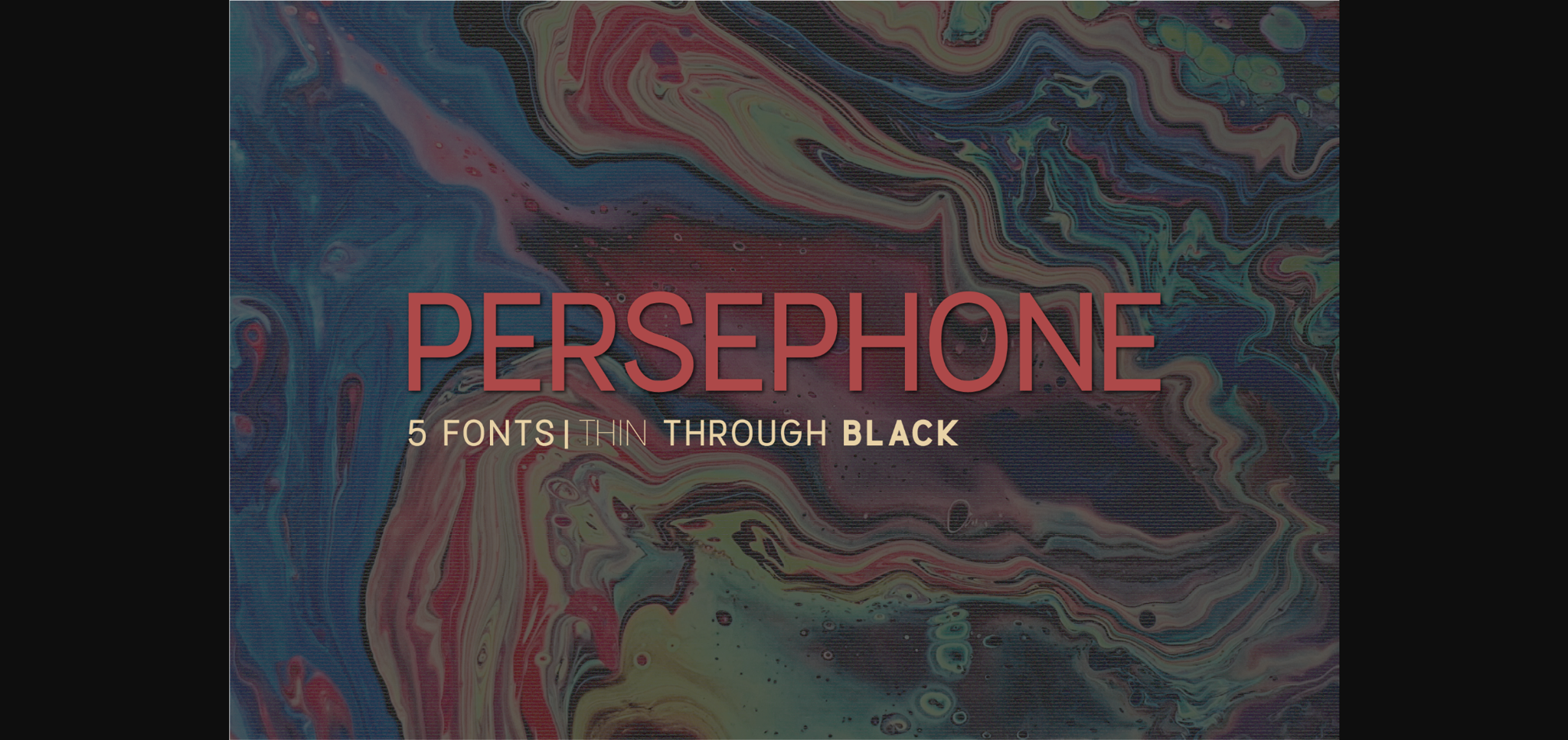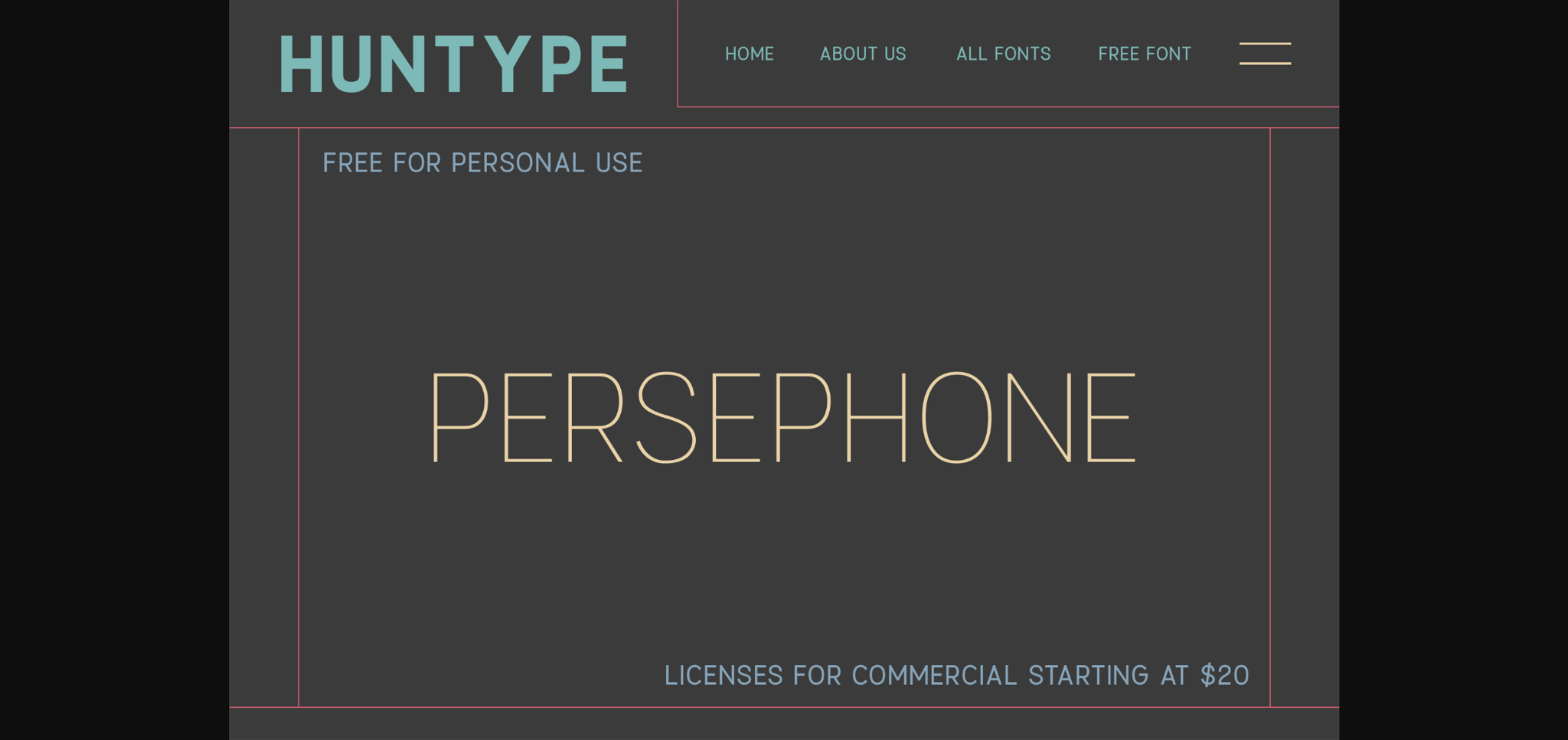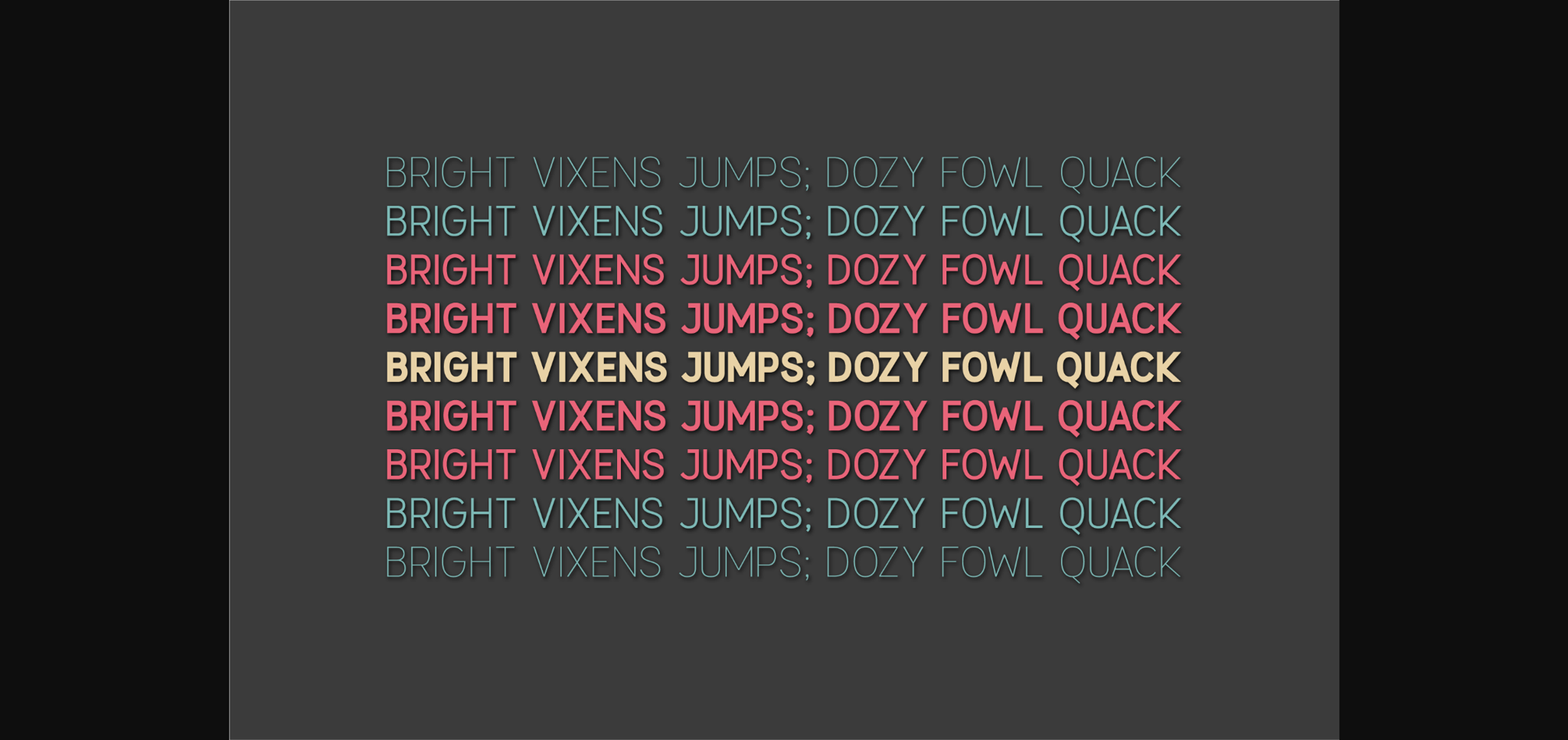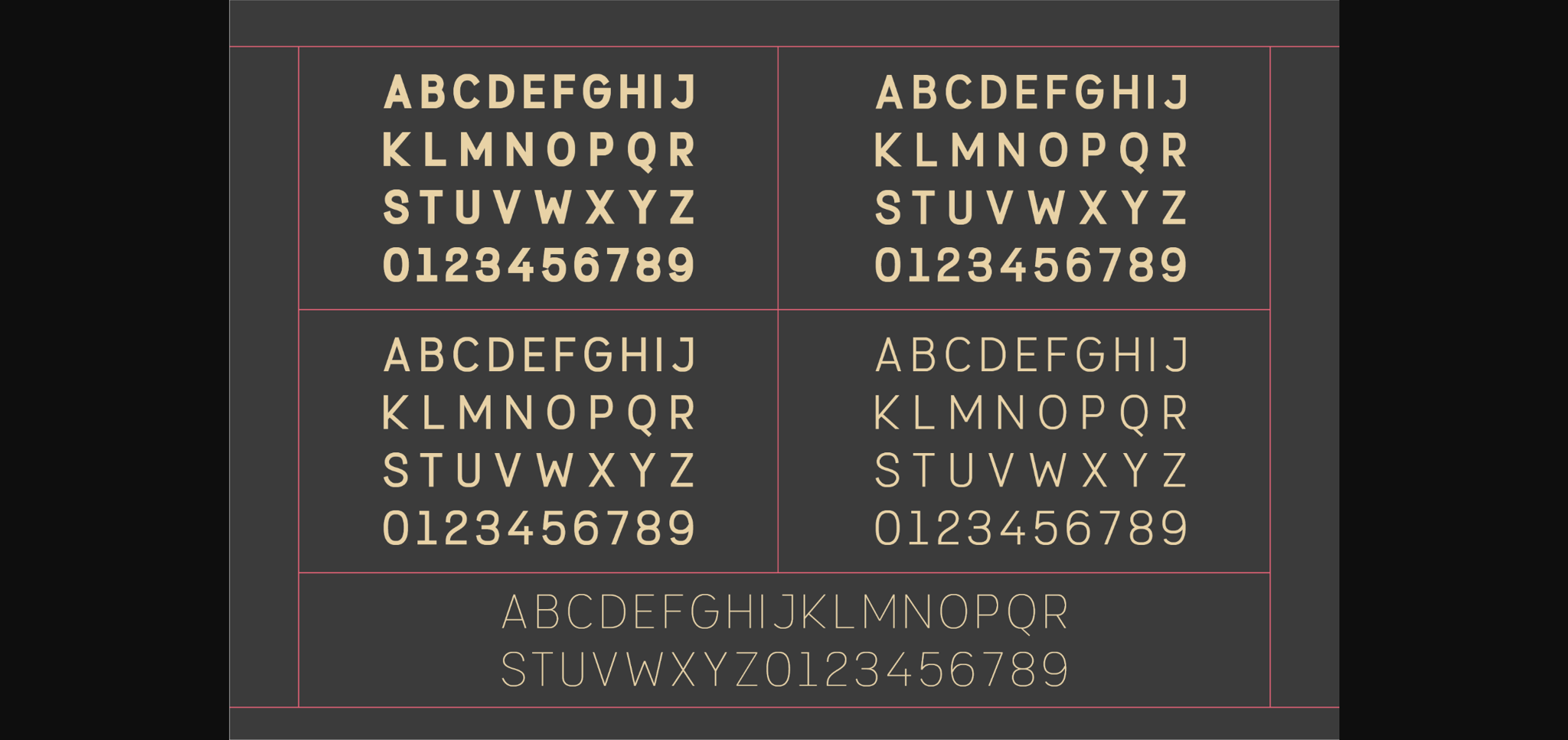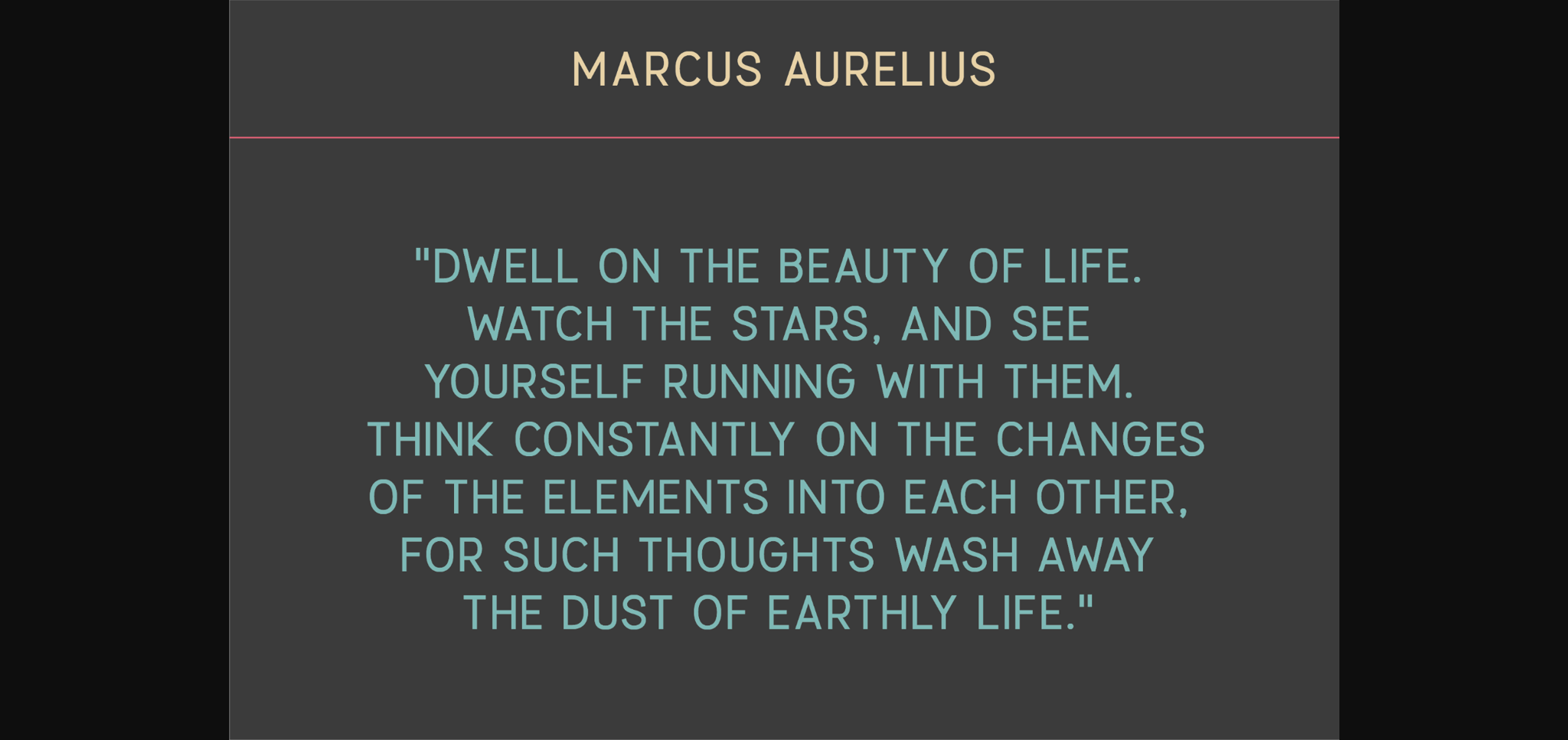
Persephone Font
About Persephone Font
Introducing Persephone, a meticulously crafted font family that epitomizes elegance, modernity, and versatility. With its five distinct weights—THIN, LIGHT, REGULAR, BOLD, and BLACK.
Persephone offers a wide range of creative possibilities, making it the perfect choice for designers and content creators. Whether you’re aiming for a subtle and delicate touch or a bold and impactful statement, this font family’s seamless blend of sophistication and contemporary style ensures your projects will shine with distinction.